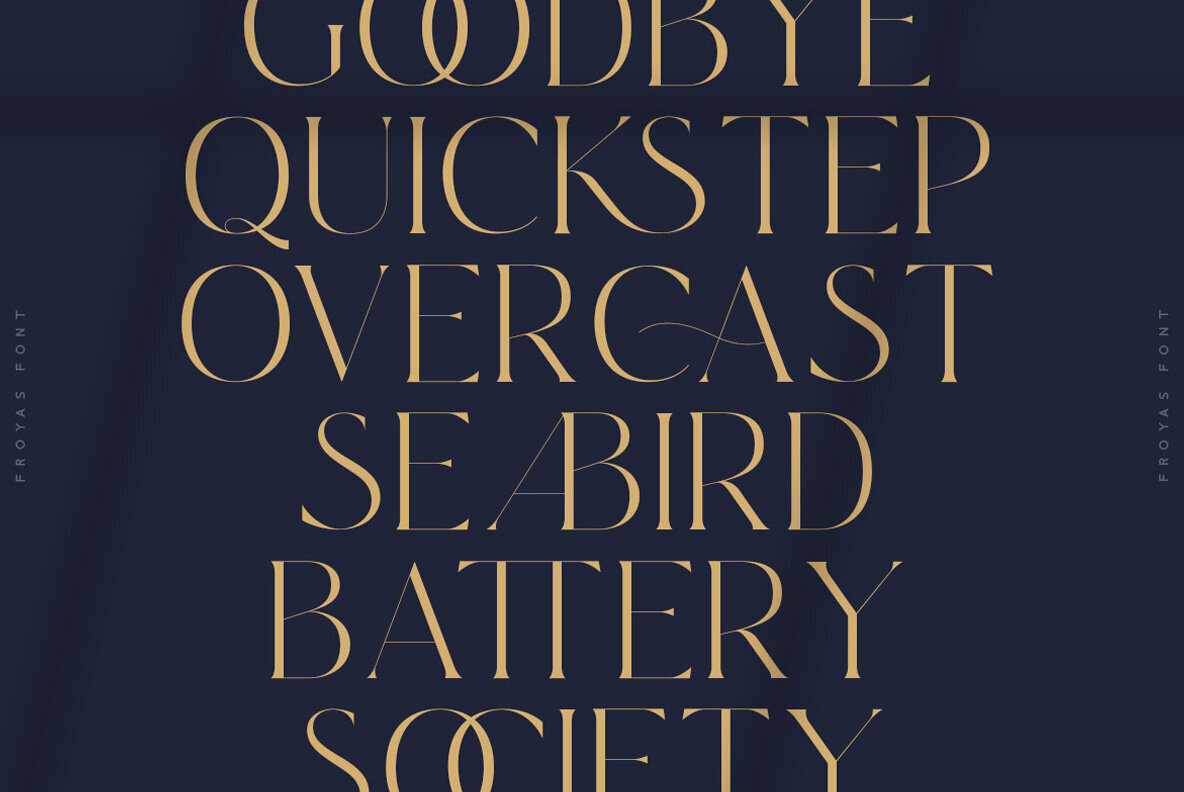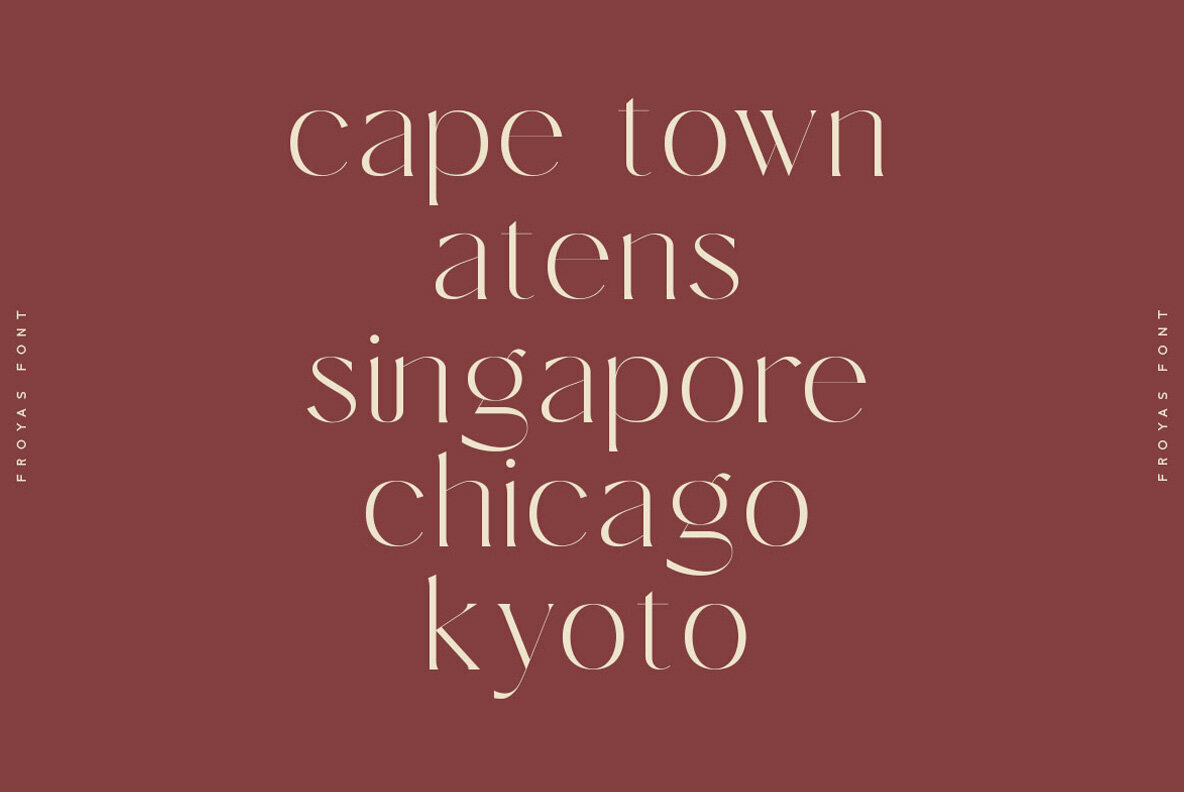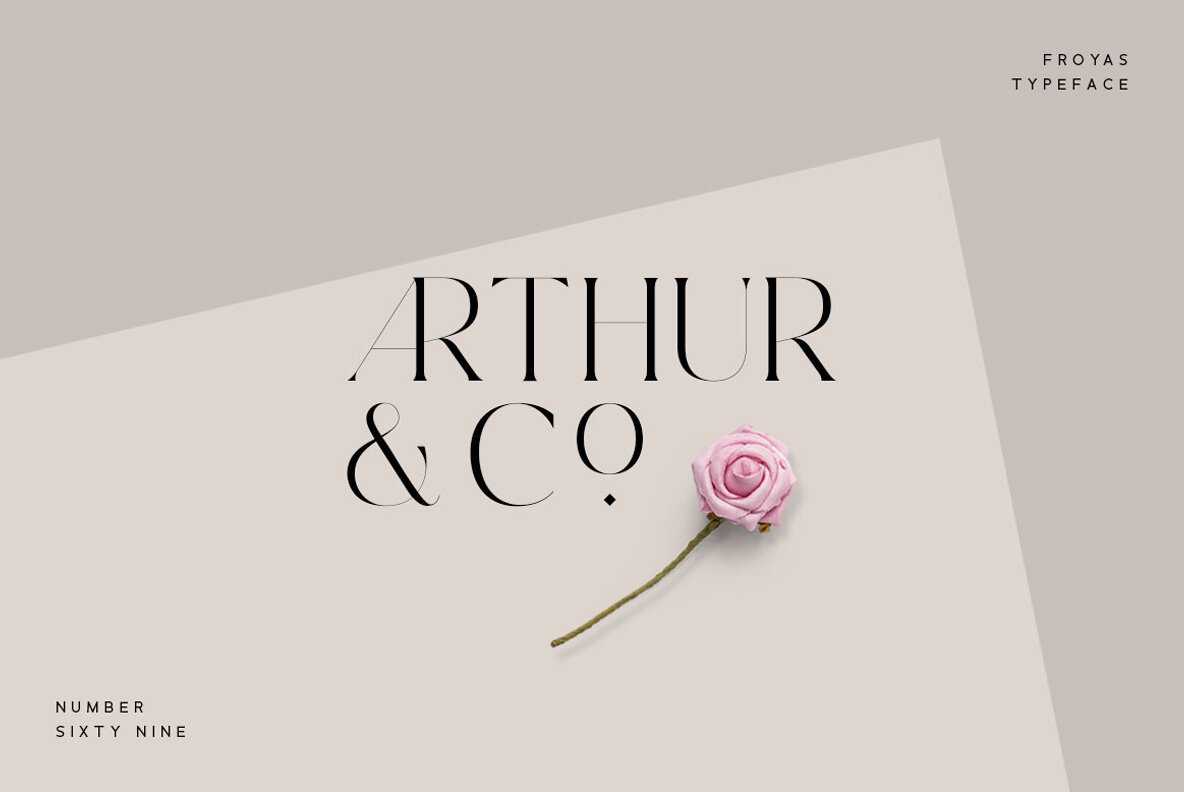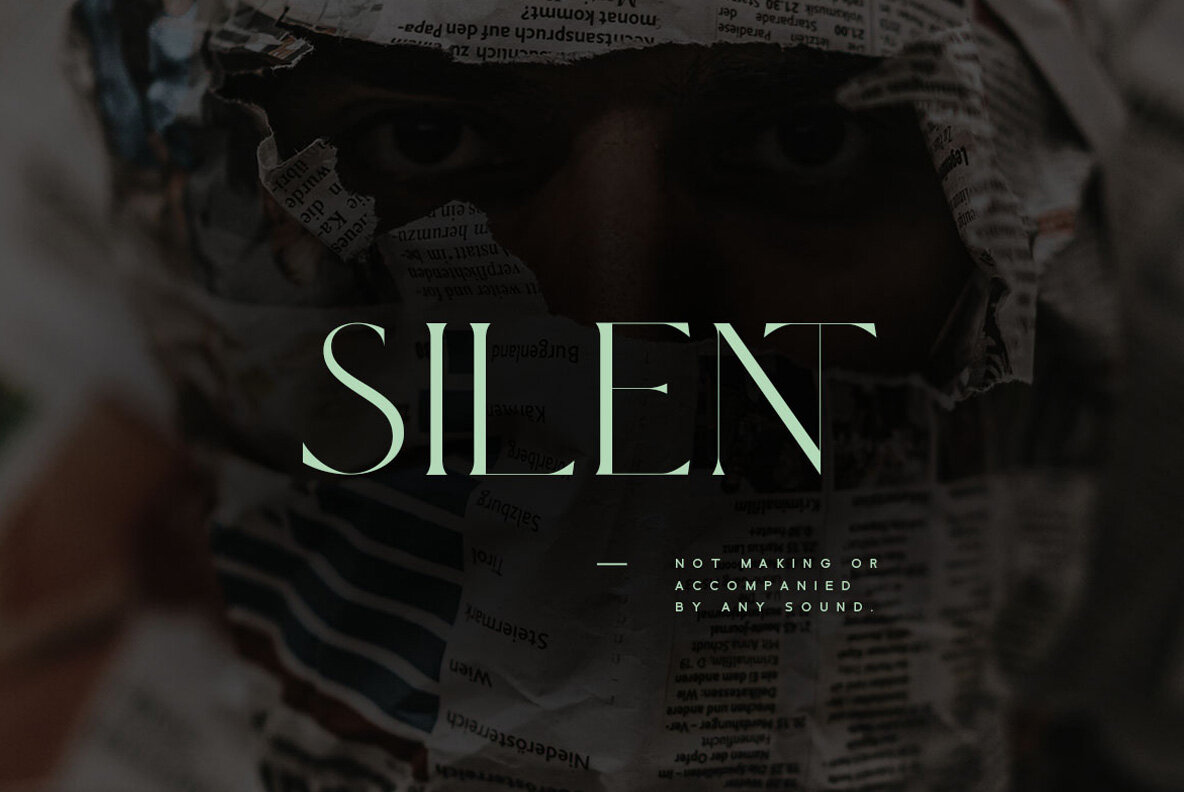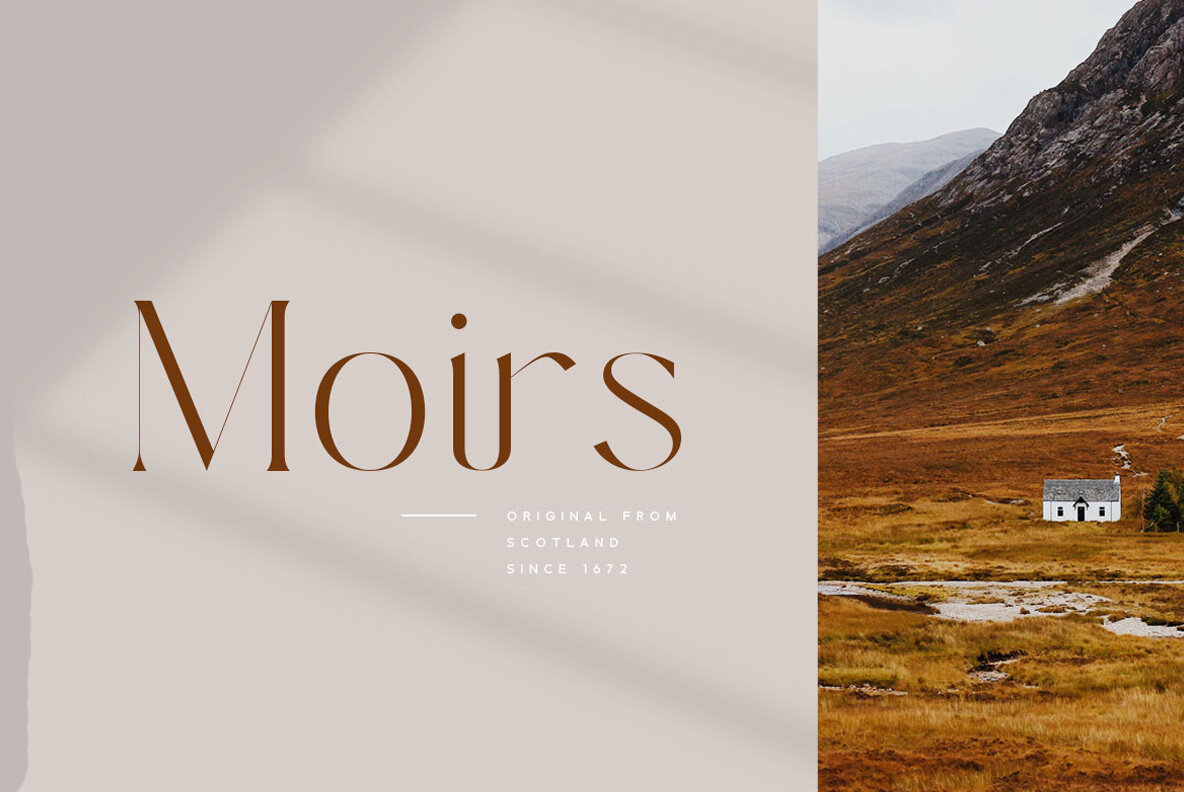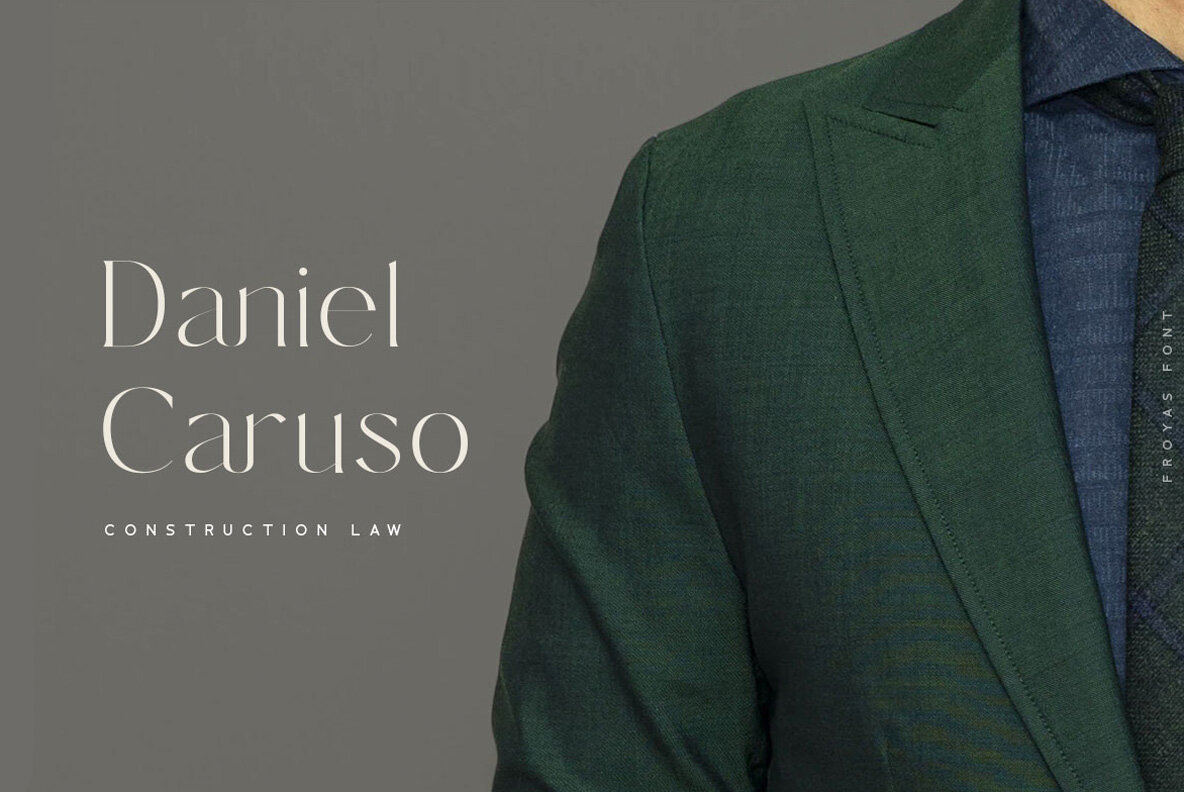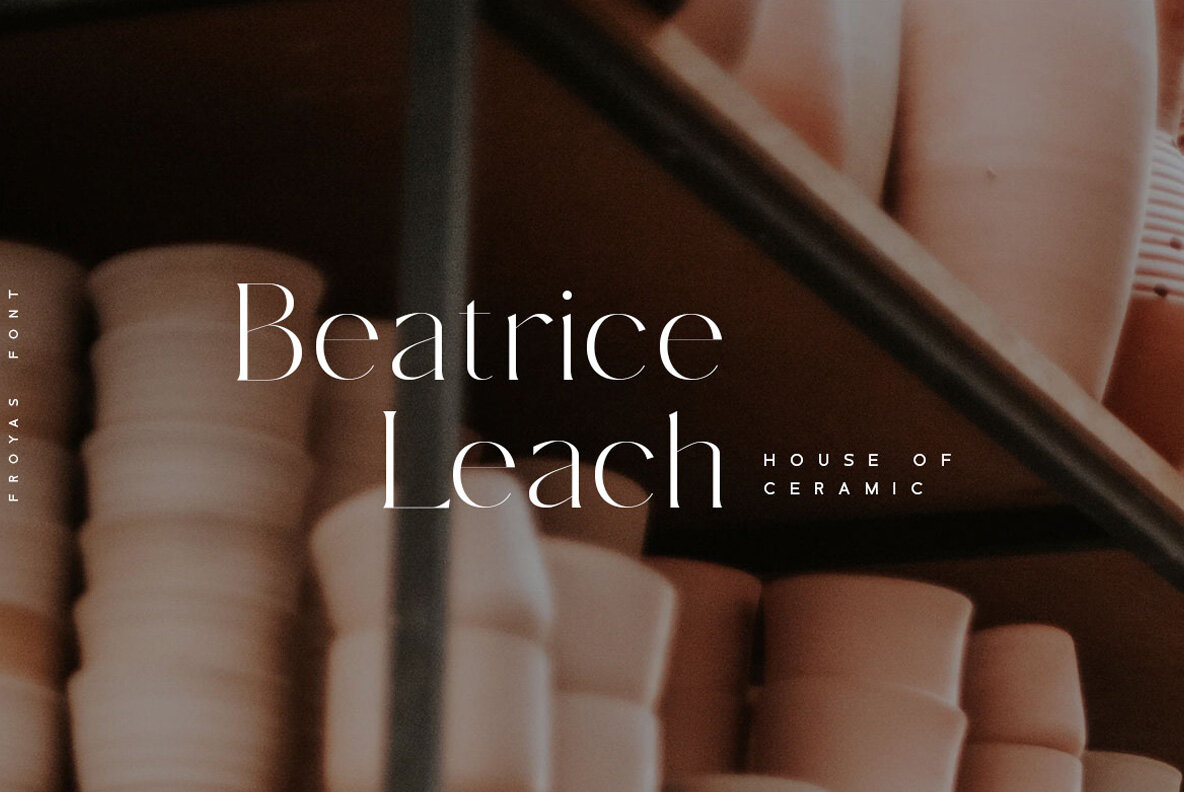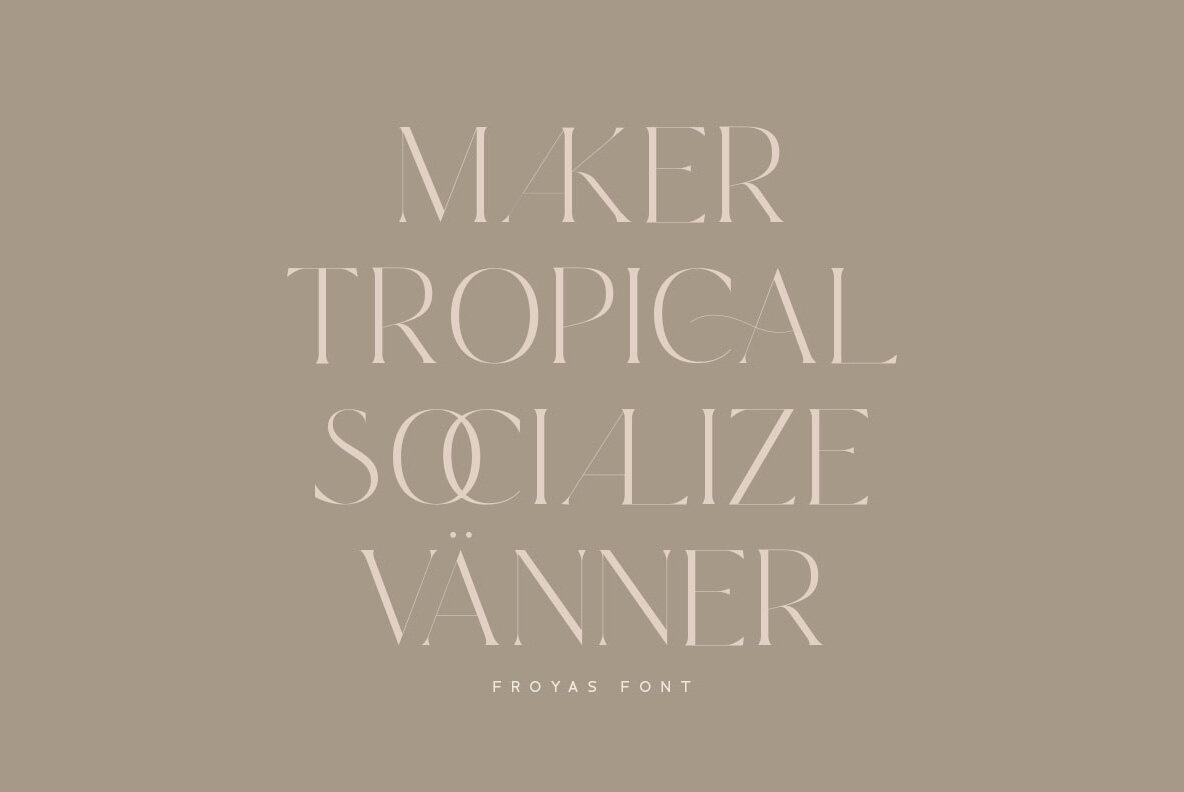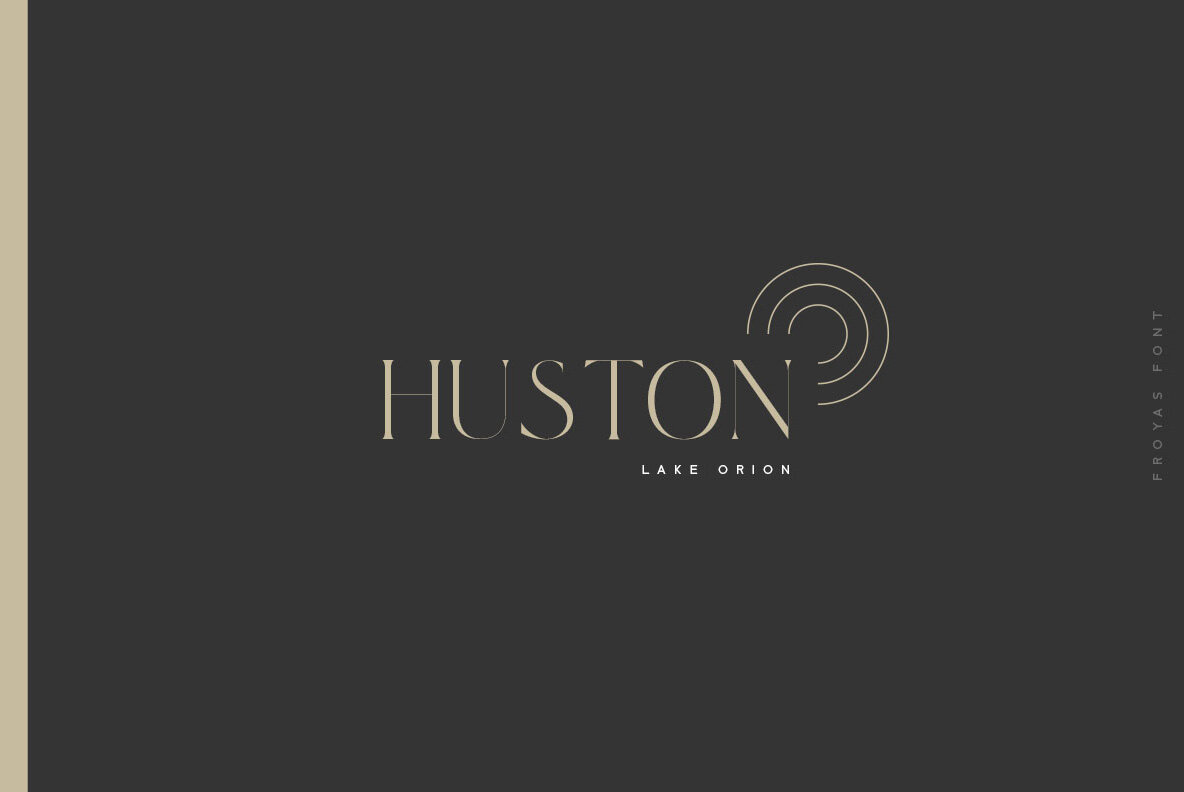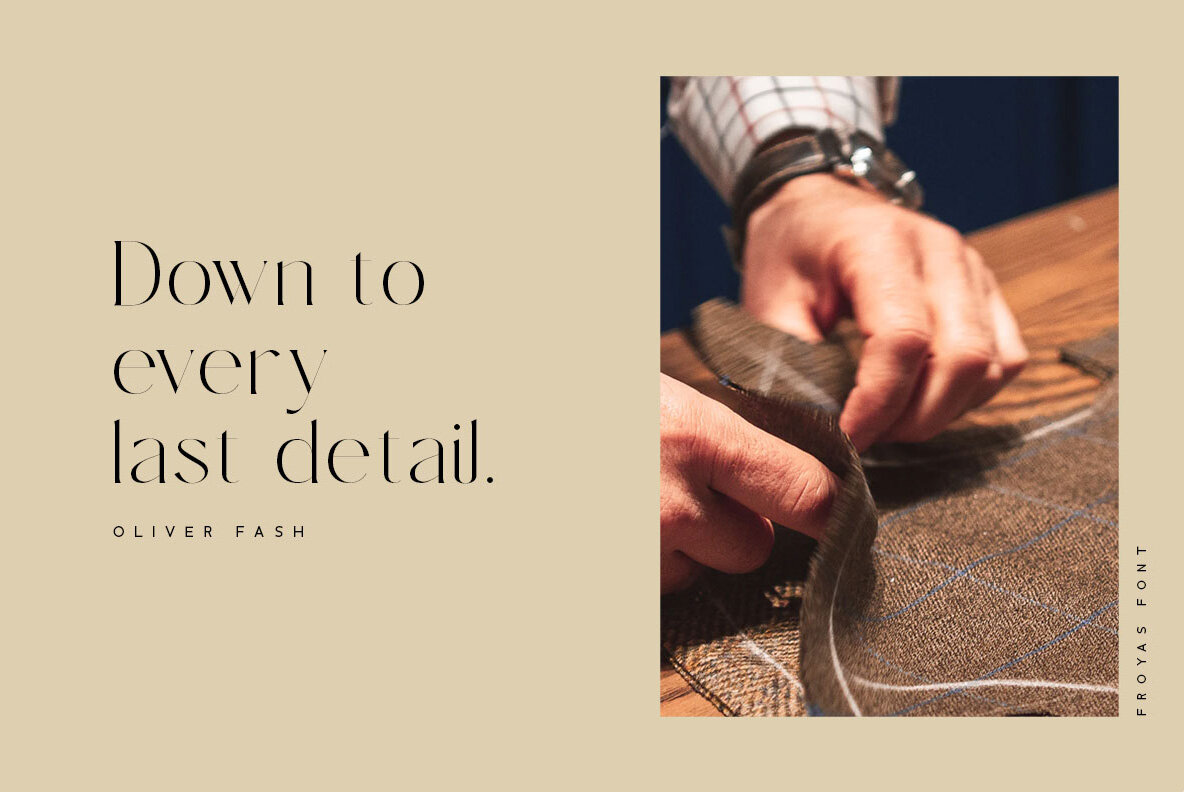
Froyas Font
Froyas
Froyas exhibits a modern sans serif design, with each letter meticulously crafted to infuse uniqueness into your text. This font distinguishes itself with its elegant alternate glyphs. These can be accessed via Font Book on Mac or Windows Character Map, adding versatility to your creative projects.Froyas: Modern Sans Serif for Distinctive Text